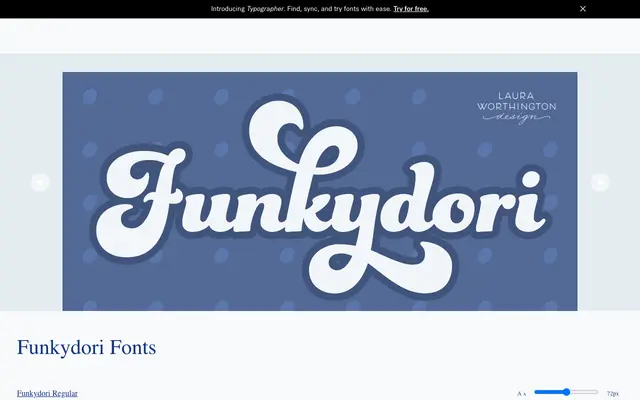
Funkydori
A two-weight display face modelled on 1970s lettering, loaded with swash capitals, ornaments and multiple stylistic alternates for expressive typesetting.
Built as a tribute to 1970s graphic aesthetics, the family comes in Regular and Bold with an extensive set of OpenType features including swash capitals, titling alternates, discretionary ligatures and 38 ornaments and patterns. Multiple stylistic sets give designers granular control over letterform variants without requiring professional design software. Suited to packaging, editorial and branding work that wants a knowingly retro character.
A decorative display face explicitly designed as a homage to 1970s graphic lettering, with swash capitals, ornaments and expressive alternates that place it firmly in the display category with a retro subcategory.